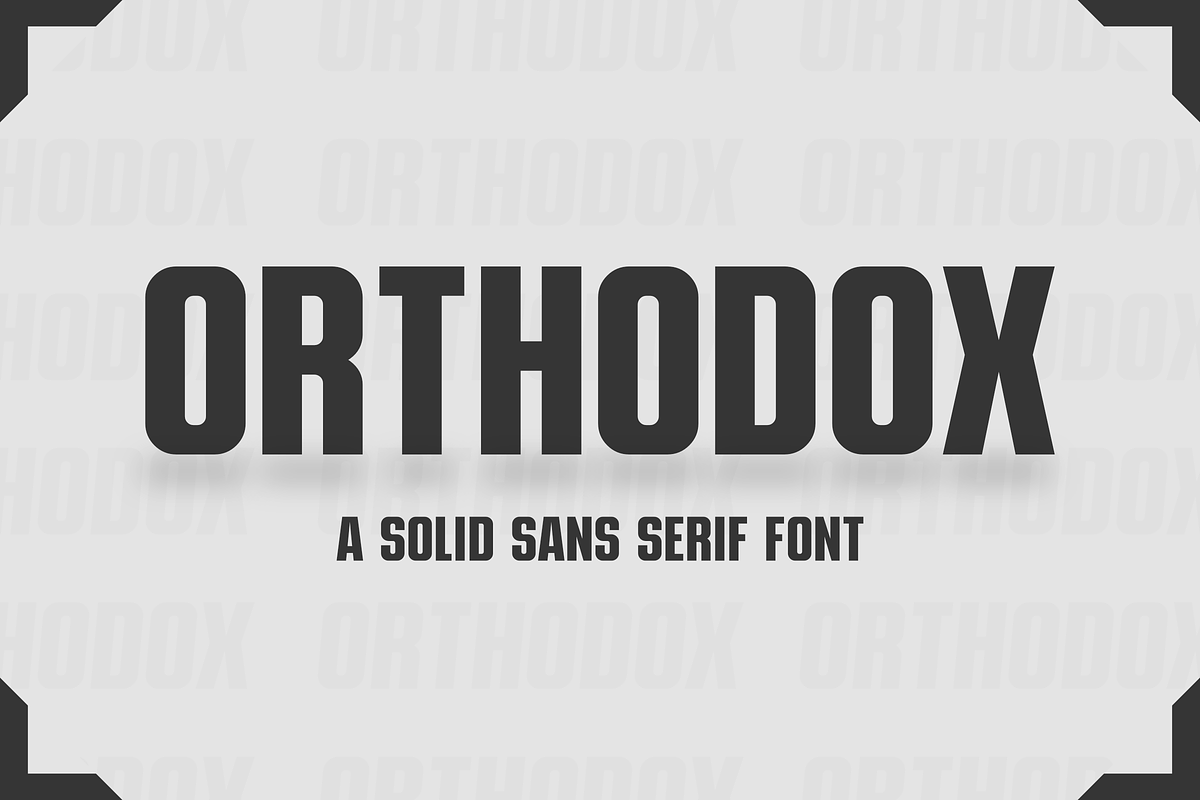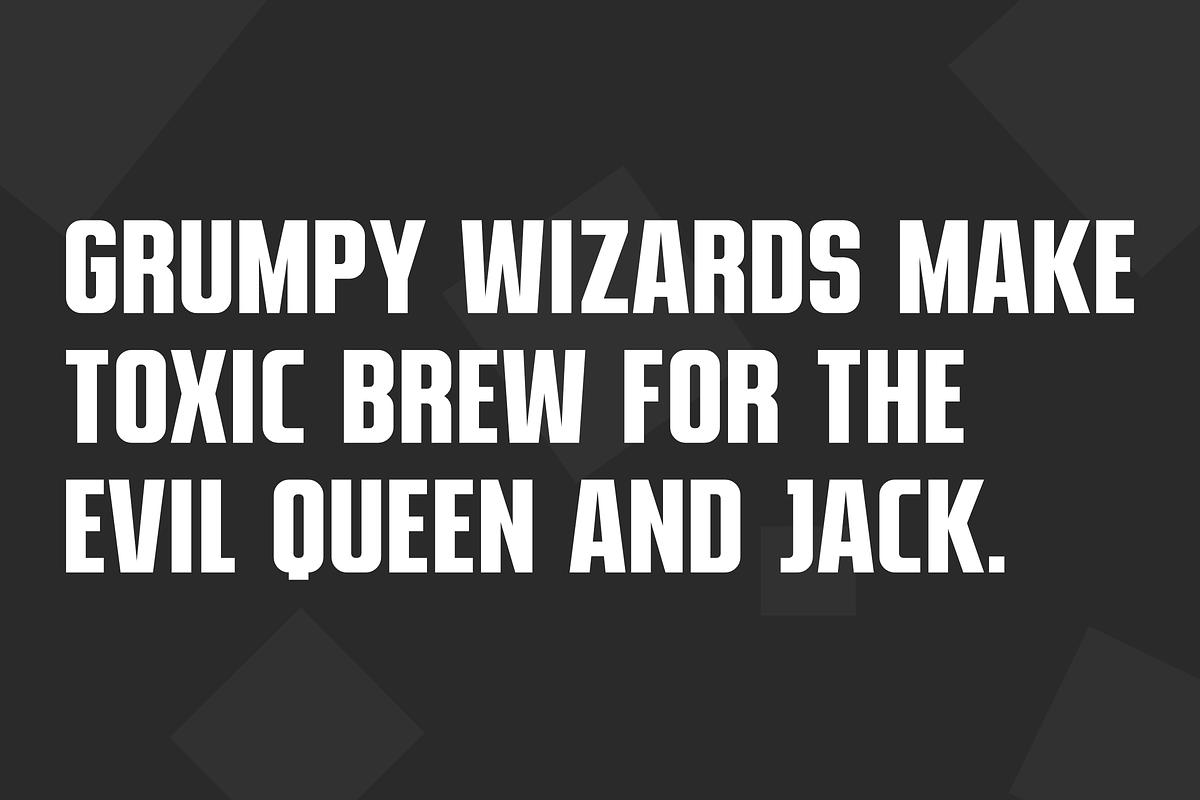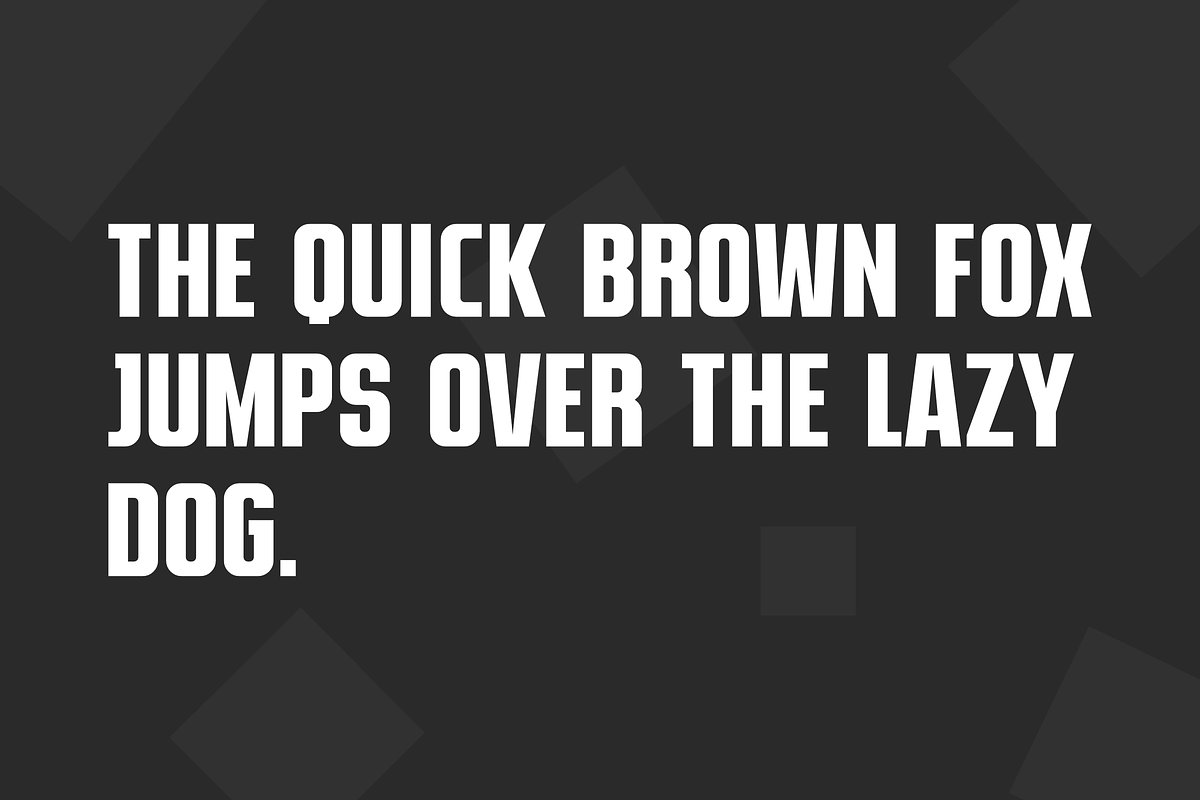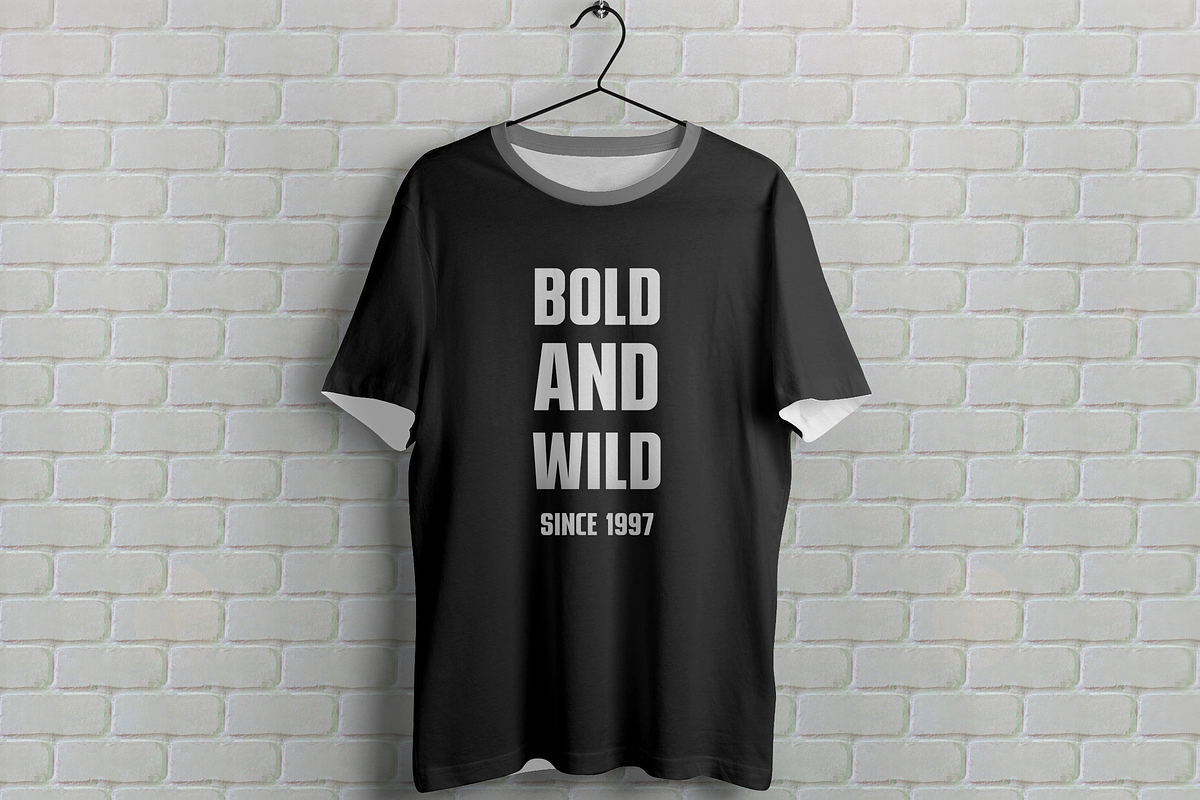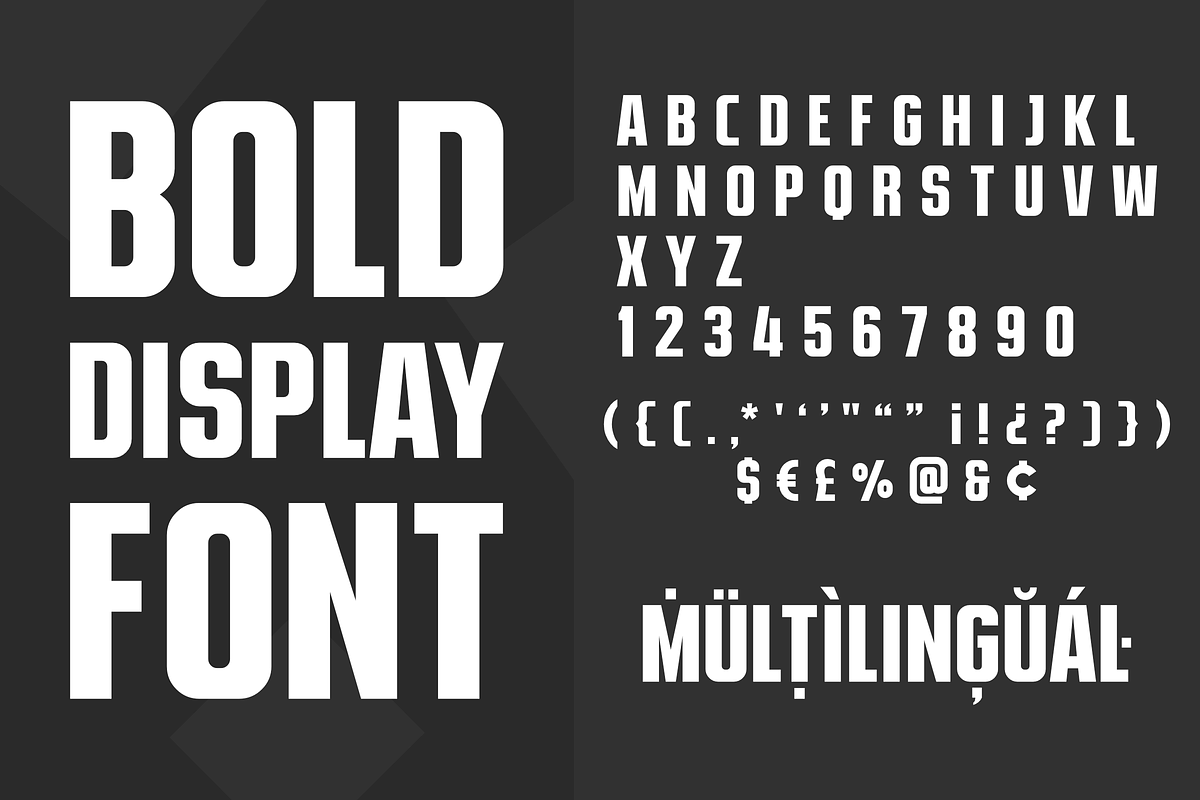
Orthodox
Orthodox is a sleek and modern sans serif font. It has a bold design that can be used to make your headlines stand out. It is an all-caps font and comes with a multi-language alphabet, supporting most European languages. This unique font will help you in creating bold headlines, make quotes for print-on-demand, etc.